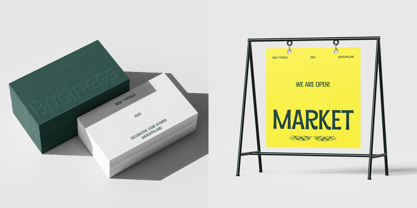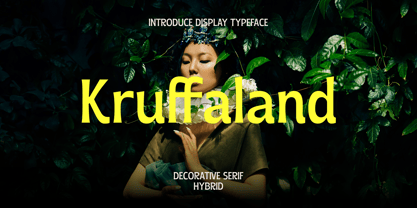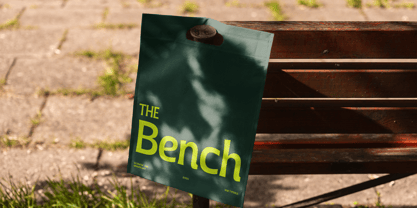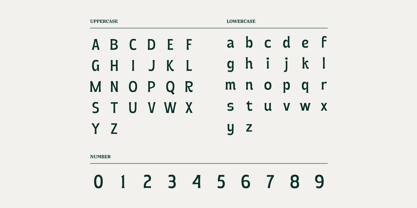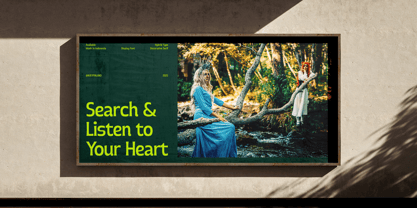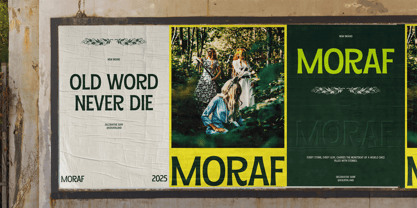
Kruffaland
The Kruffaland Font Family was designed by Panca Hasan and published by Slidehack. Kruffaland contains 1 styles.
Kruffaland is a bold decorative serif display font with a unique hybrid style that blends elegance and artistic character. Perfect for branding, posters, editorial layouts, and expressive titles, it delivers strong personality and visual charm. With stylish details and modern appeal, Kruffaland helps designers create distinctive, eye-catching designs that feel creative, confident, and visually engaging across digital and print media.